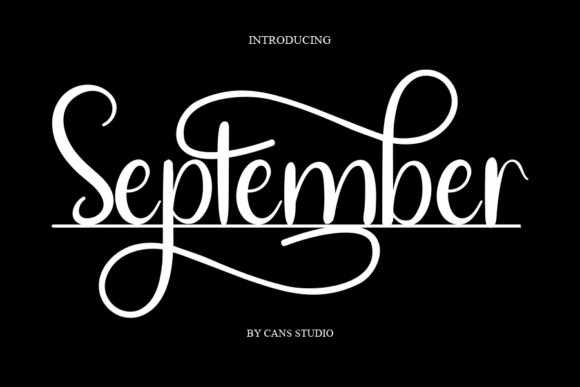
Looking for the best font for your email signature? Look no further than September Font, the newest addition to our collection! September is a script font family created by Cans Studio that exudes elegance, sophistication, and playfulness all at once. This simple, quirky, and adaptable handwritten font is perfect for a wide range of applications, from wedding invitations and business cards to social media posts, greetings cards, wall art, and more.
What sets September Font apart from other script fonts is its versatility. Whether you want to convey a sense of whimsy or professionalism, this font has you covered. It can be used for both personal and commercial projects, making it an ideal choice for anyone looking to elevate their brand or personal style.
But don't just take our word for it. September Font has been tested and approved by countless satisfied customers, who rave about its easy-to-read letters, elegant curves, and charming quirks. Plus, it's incredibly easy to download and install, so you can start using it in your designs right away.